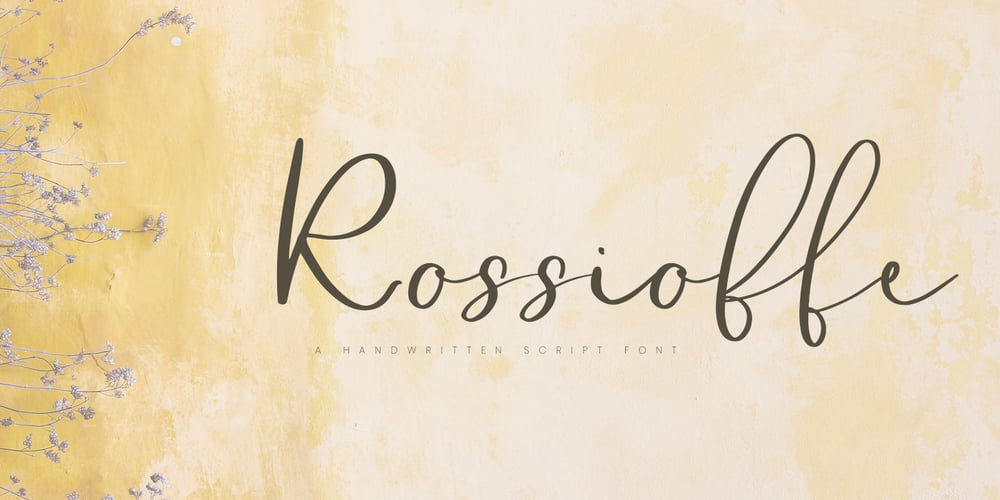
Rossioffe Font Family was designed by Tanya Amos and published by Tanincreate. Rossioffe contains 1 styles and family package options. Rossioffe is a handwritten script font for signature logos, blog post projects, headings, invitations, greeting cards and more!